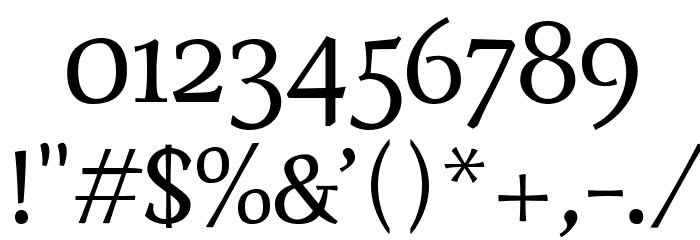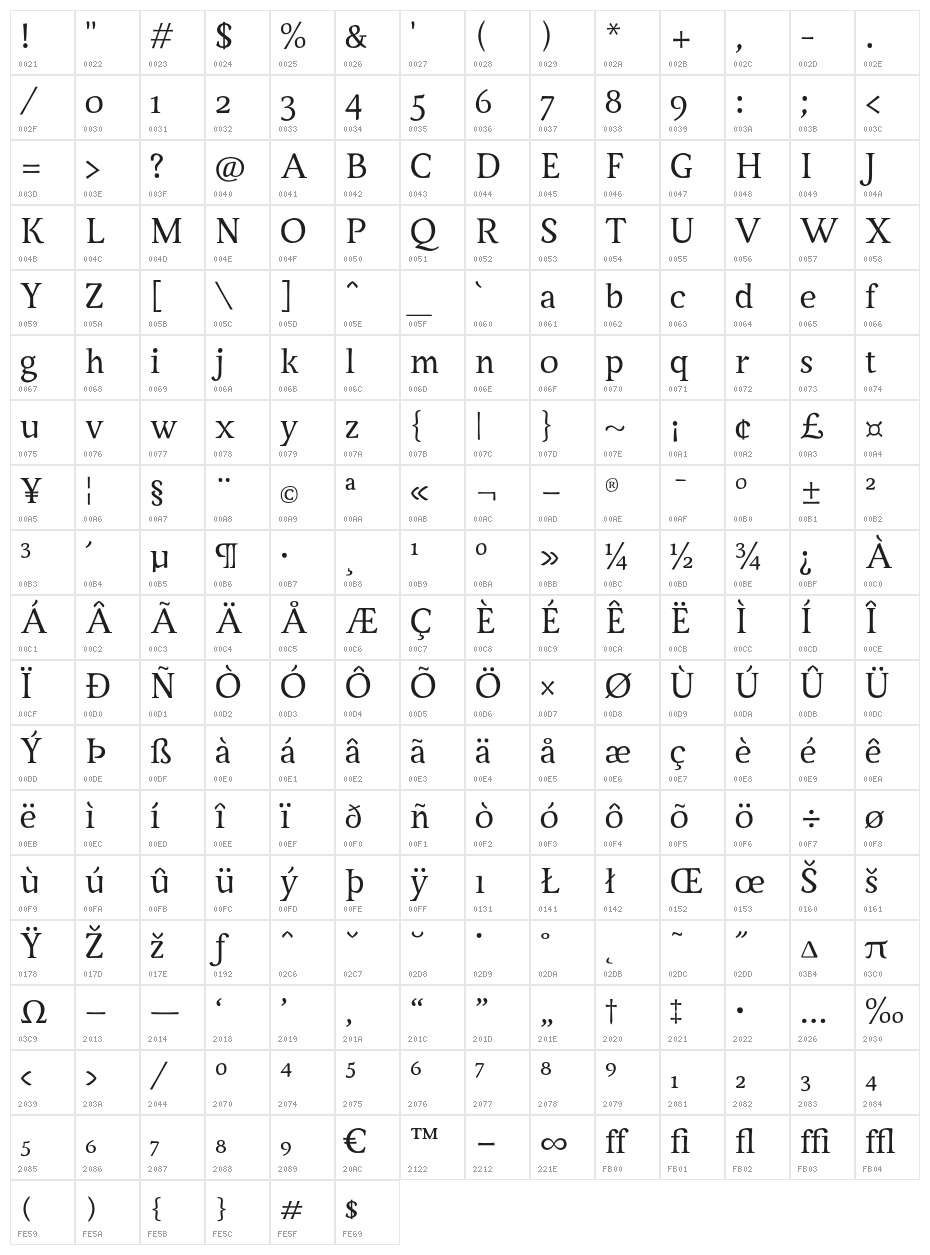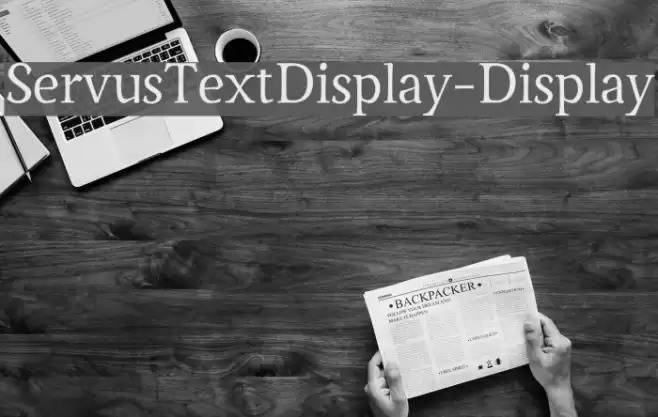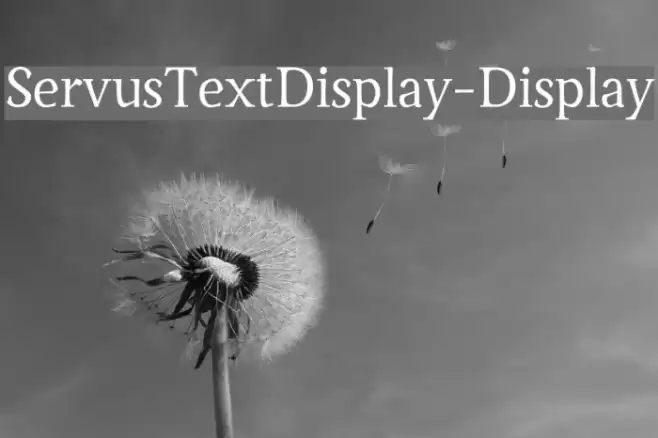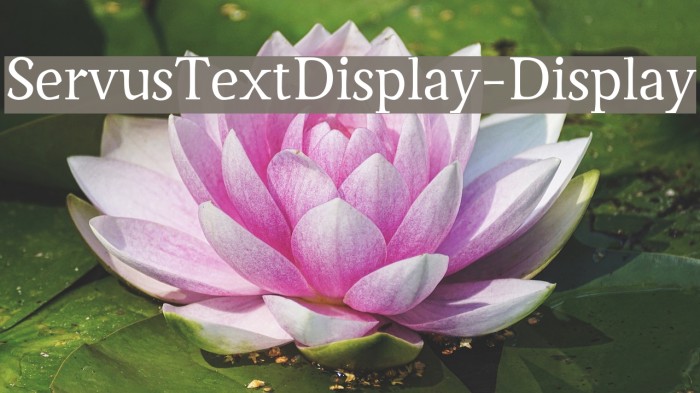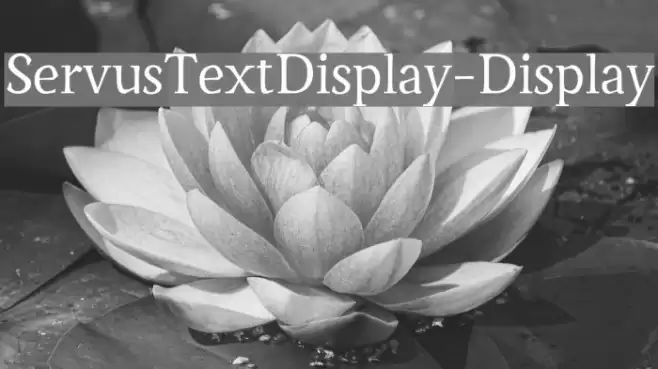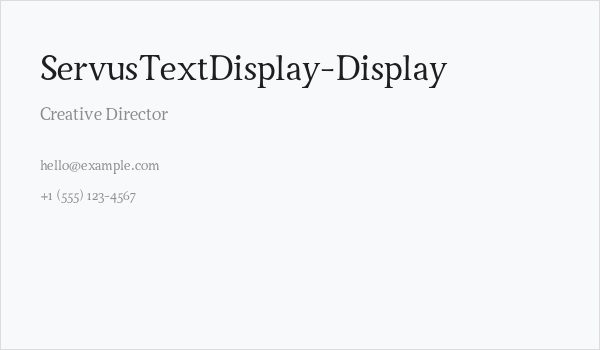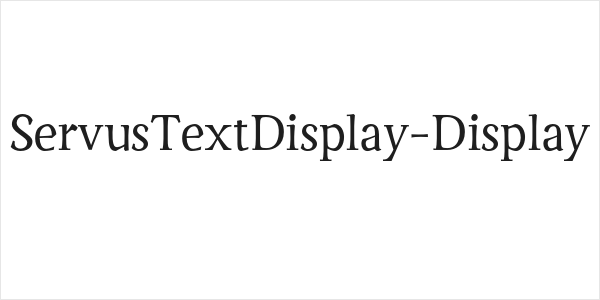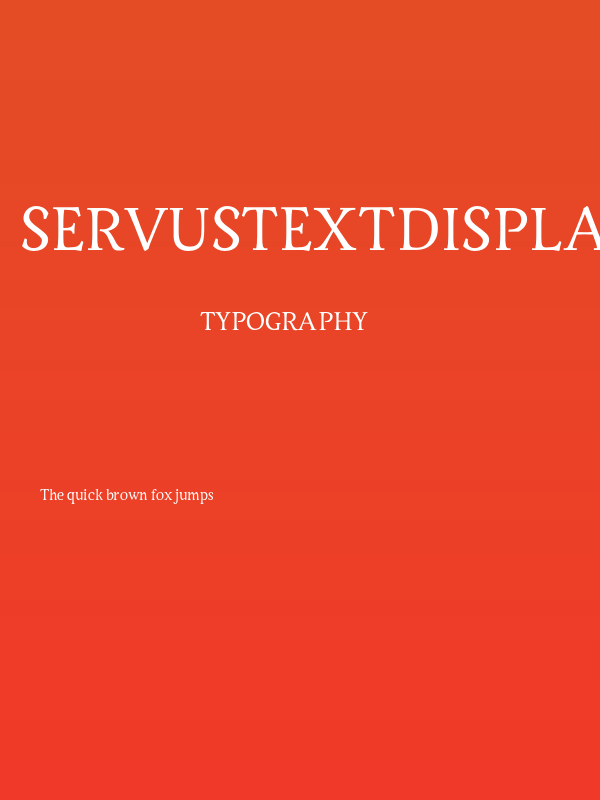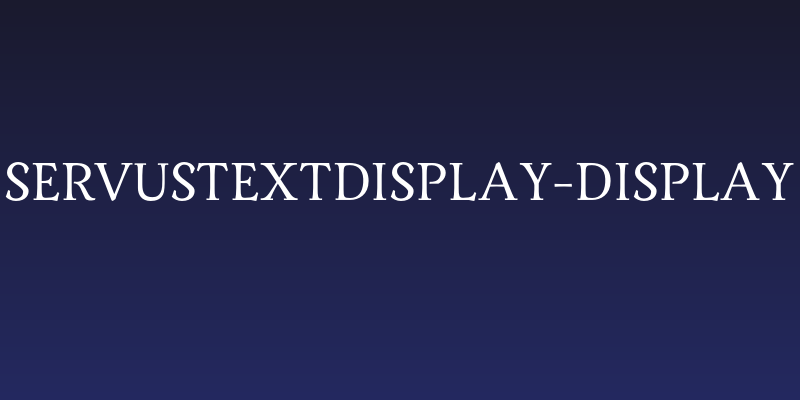
ServusTextDisplay-Display Font
ServusTextDisplay-Display Description
This font features a classic serif style with elegant and slightly curved serifs that add a touch of sophistication. The uppercase letters are bold and commanding, while the lowercase letters maintain a consistent flow with a slightly narrower form. The numerals are well-proportioned, ensuring readability. Special characters are distinct and maintain the overall aesthetic of the font. The design balances traditional serif elements with a modern twist, making it versatile for various applications.